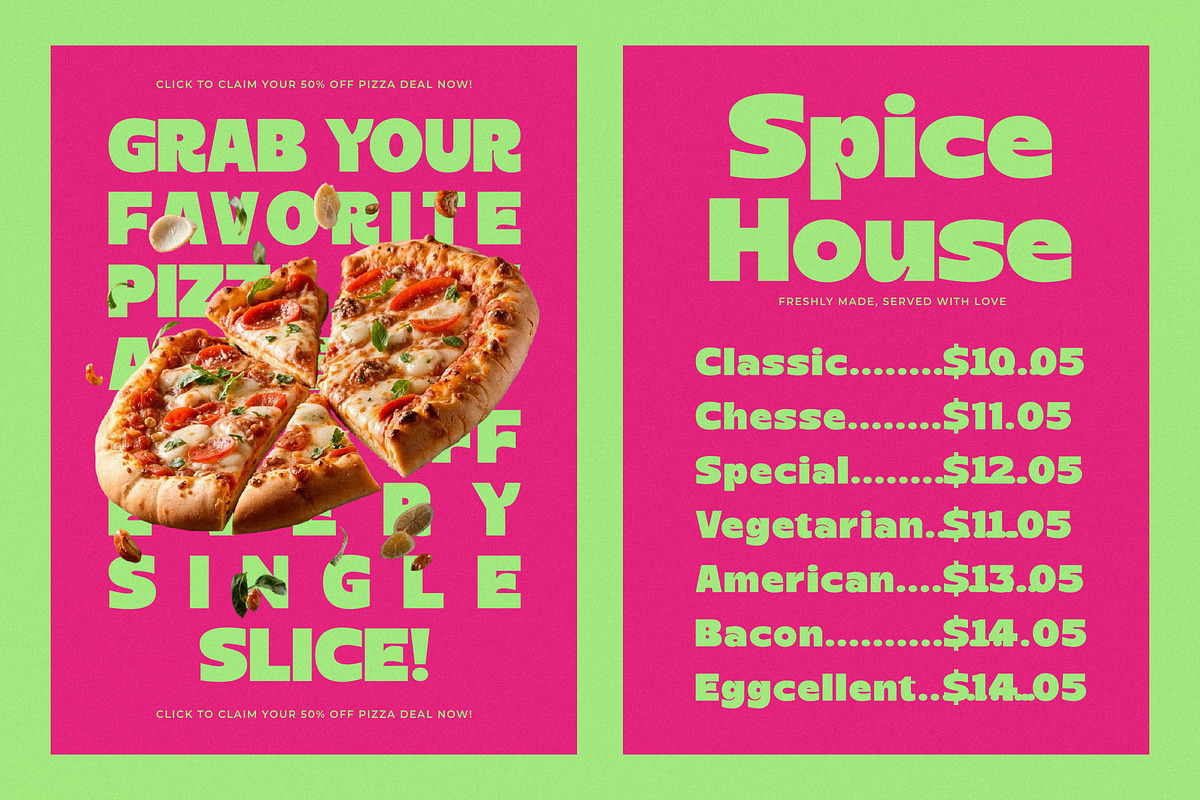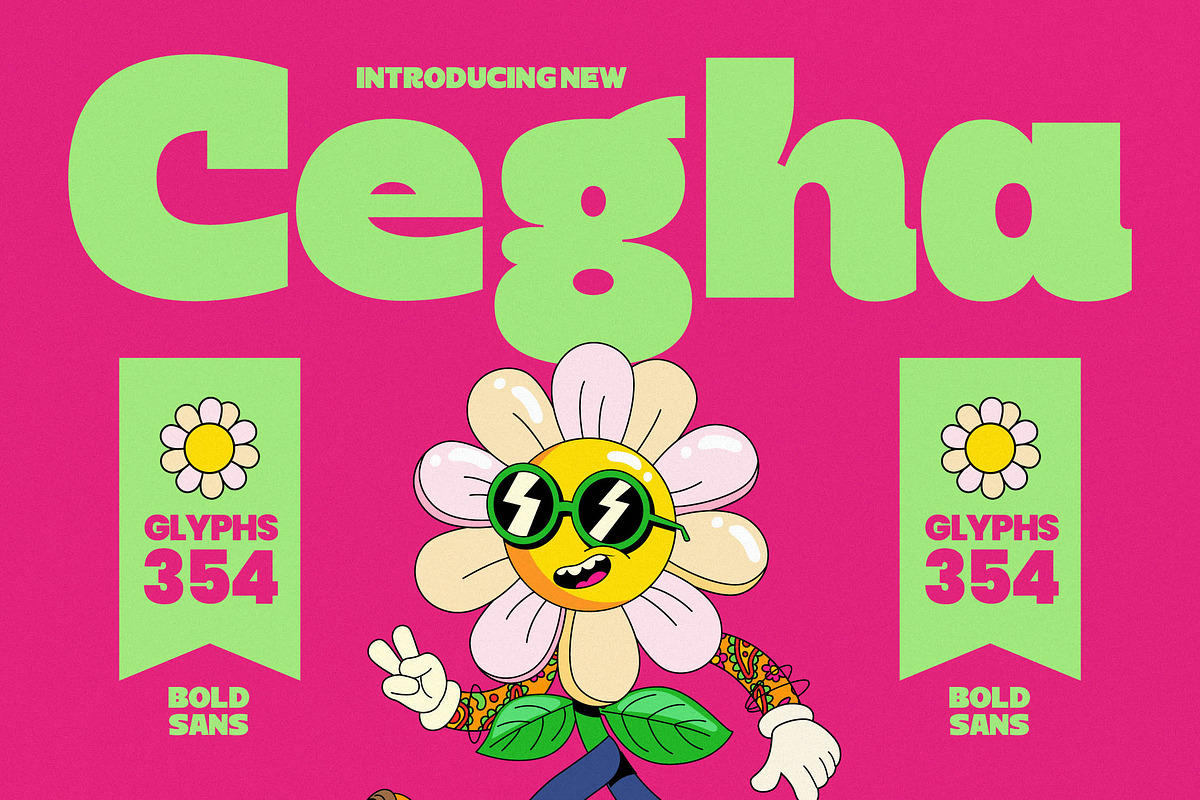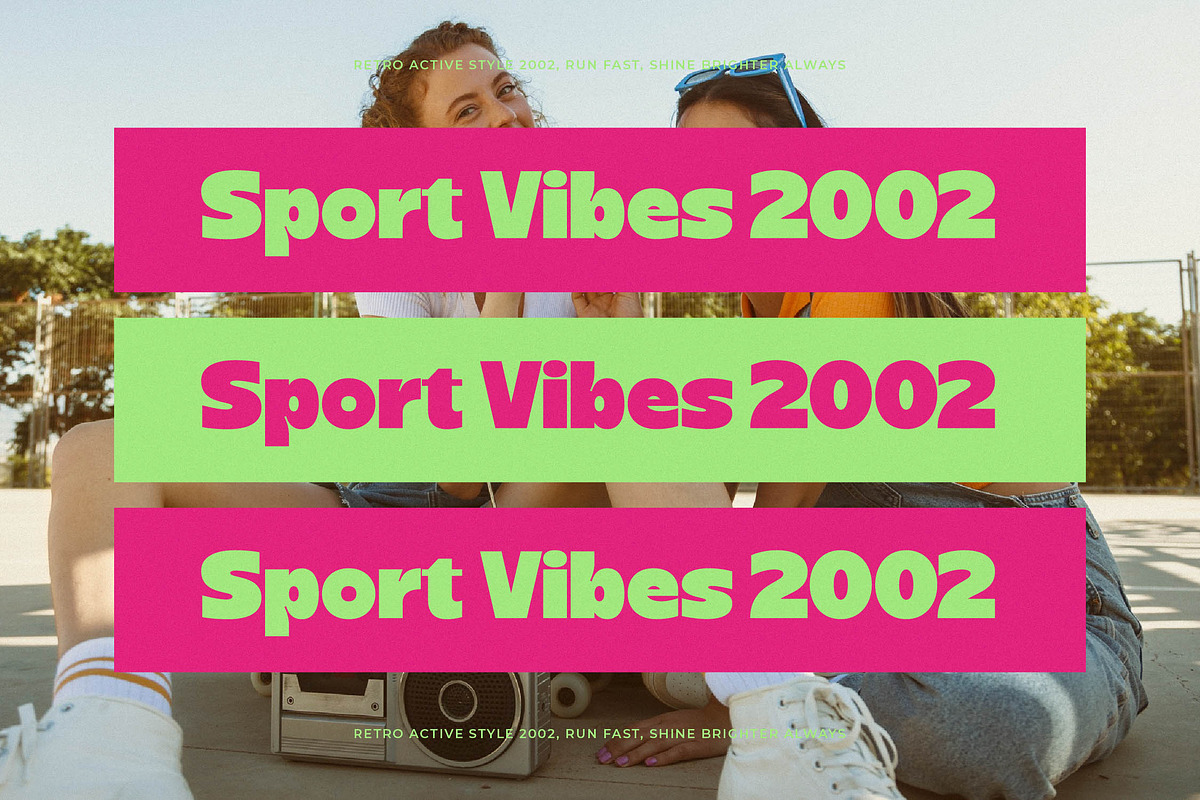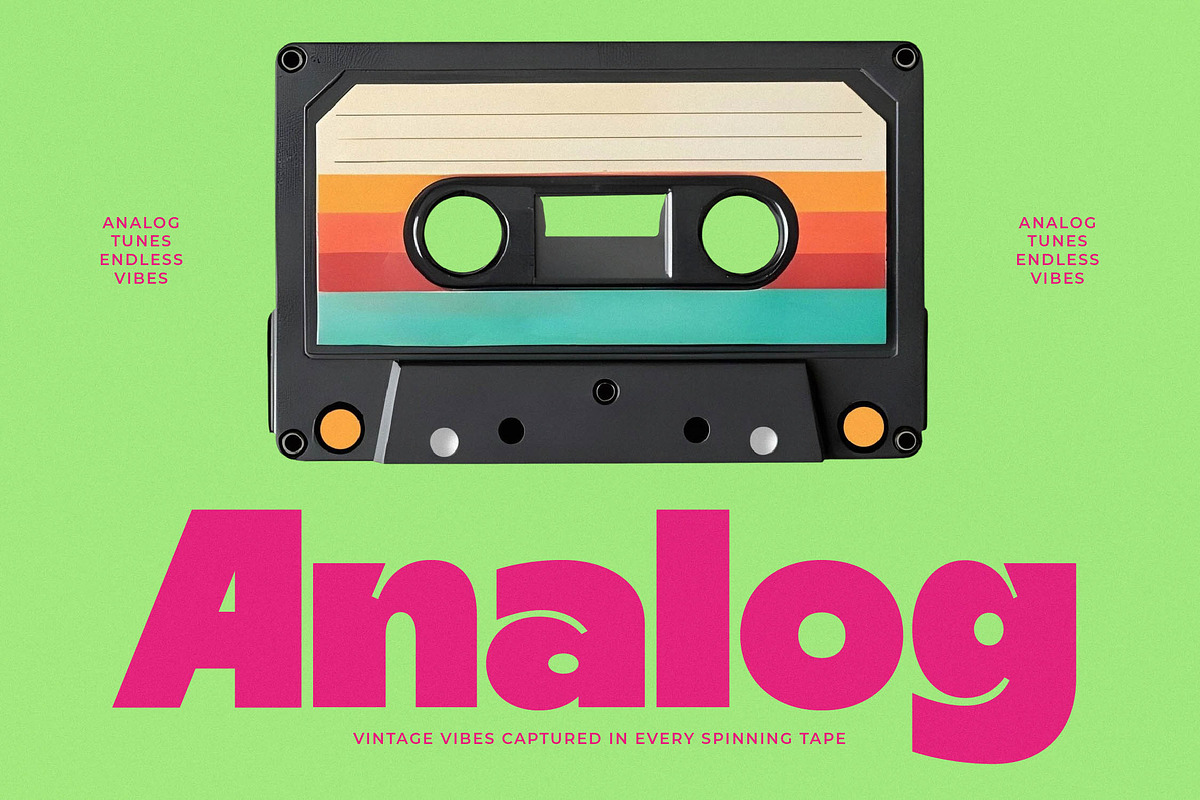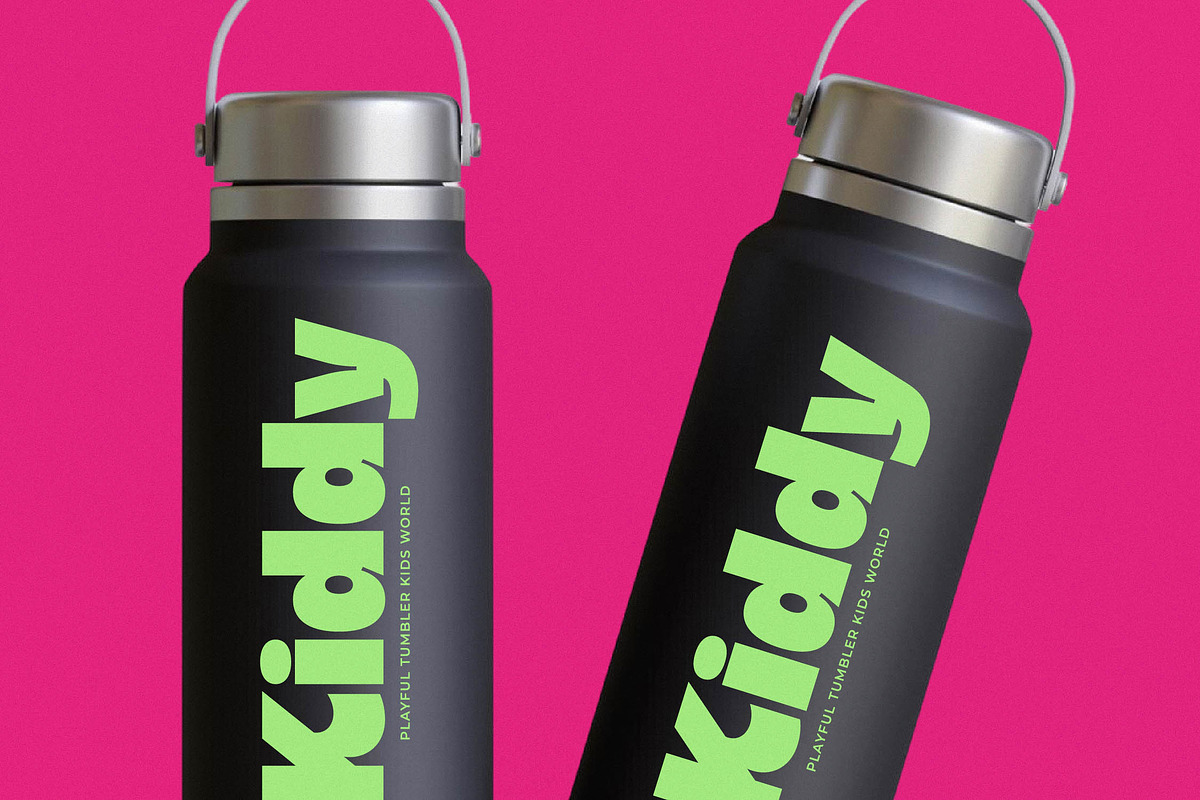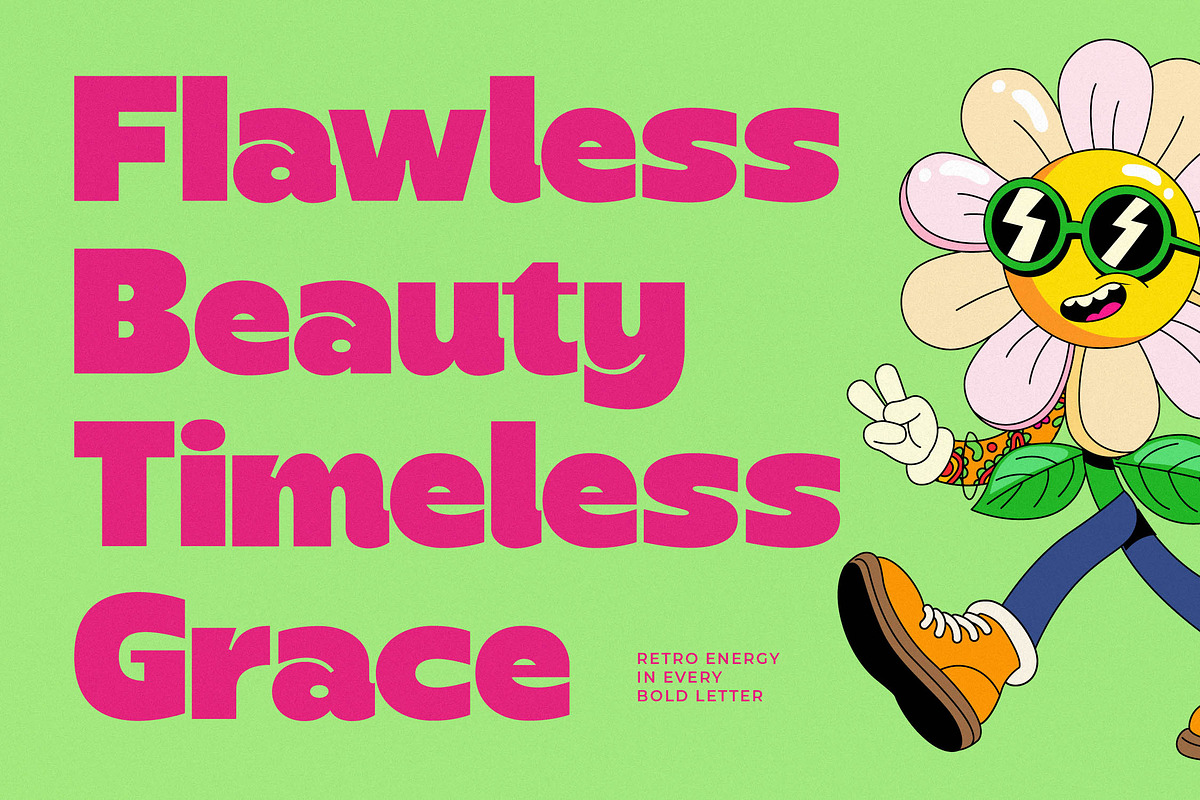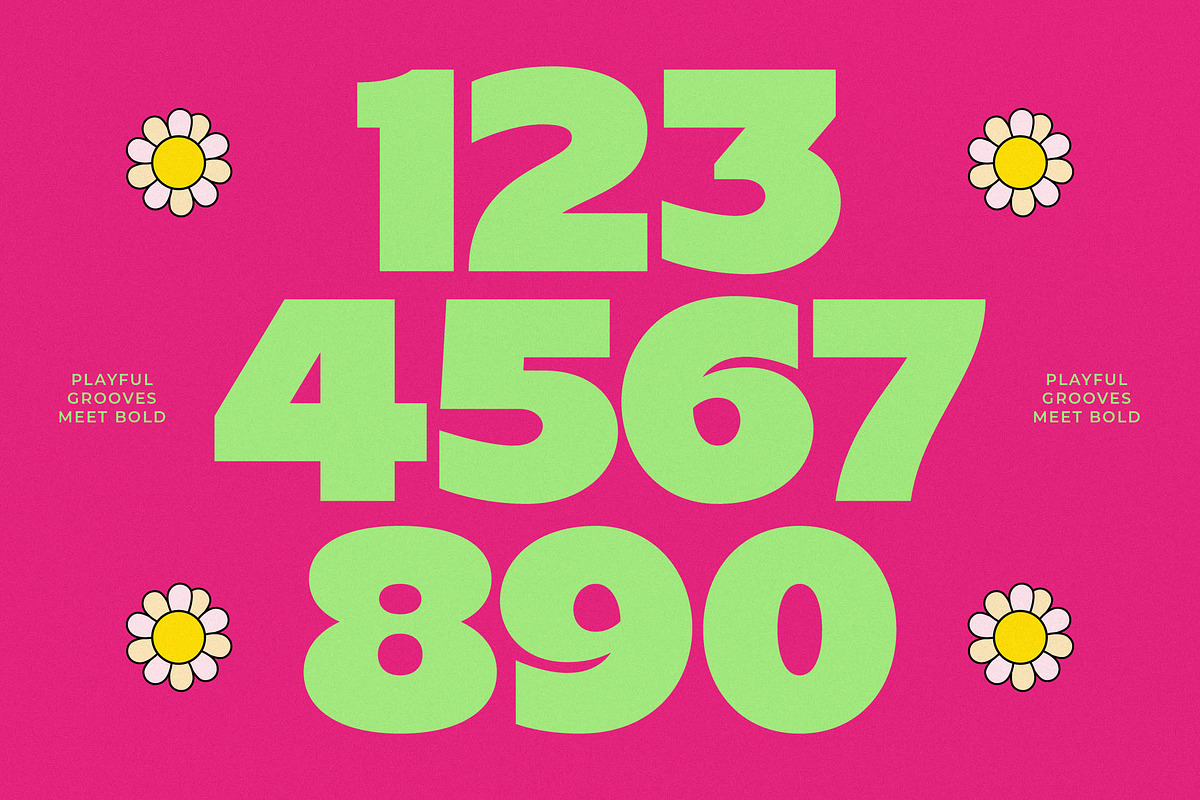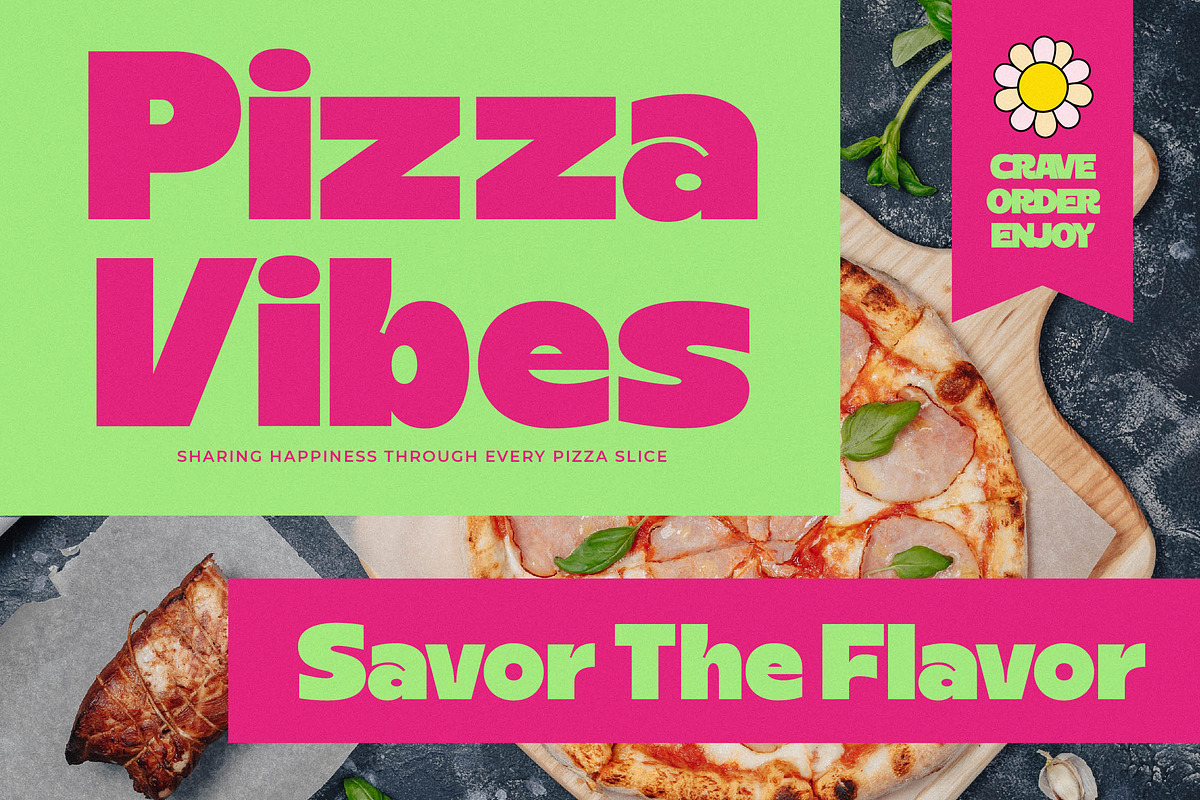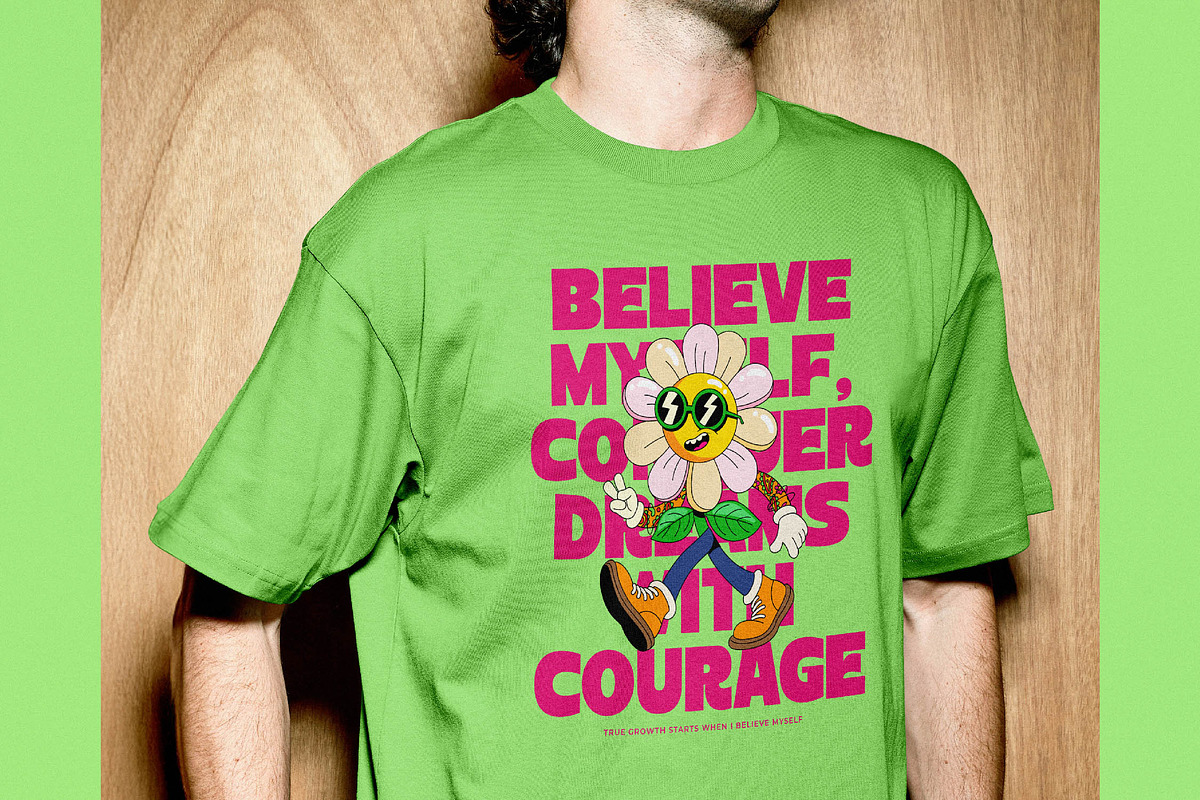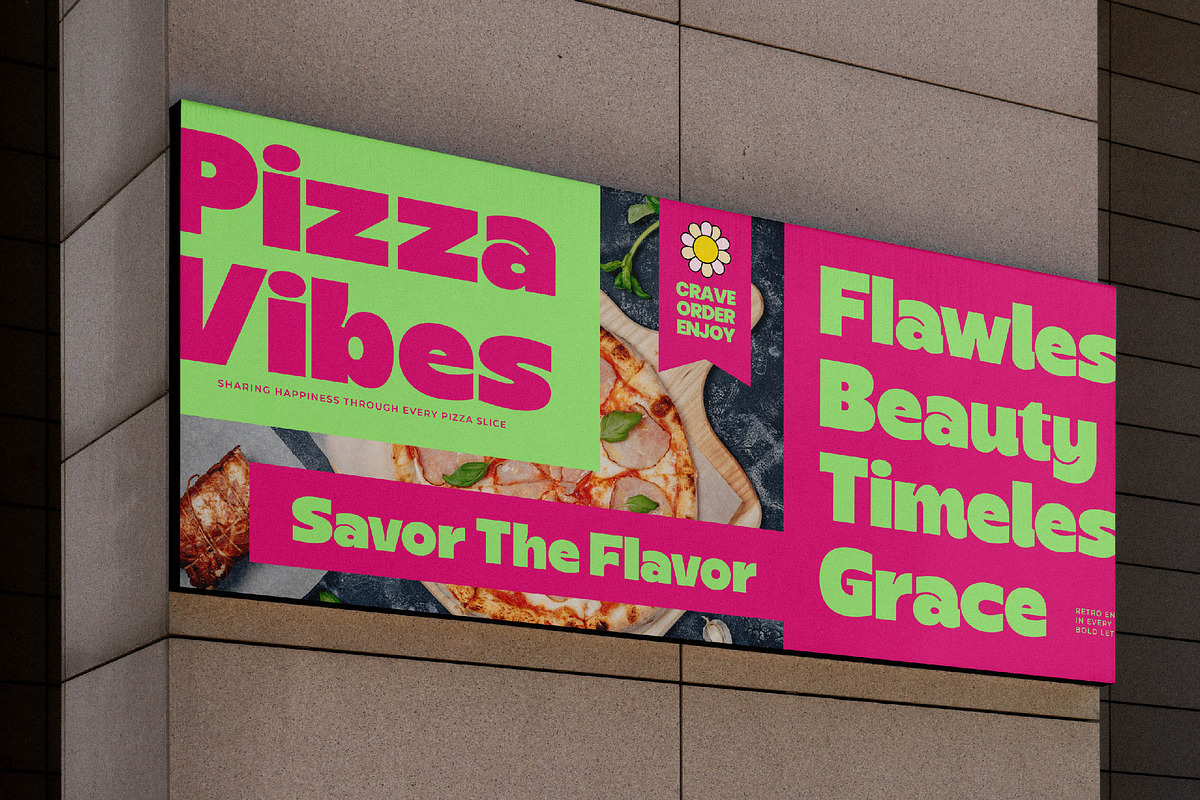
Cegha Groovy Bold Display Sans
Experience the vibrant rhythm of Cegha, a typeface designed to inject pure energy and a sense of playful nostalgia into every pixel. This font isn't just a set of characters; it's a bold statement for creators who want their work to stand out with an unmistakable groove and undeniable charisma.
Inspired by the funky aesthetics of the late 70s but polished for the digital age, Cegha captures the essence of playful grooves through its thick, juicy letterforms. It draws from retro poster art and the expressive nature of vintage advertising, blending organic curves with a contemporary edge that feels both nostalgic and fresh.
Built for maximum branding impact, this modern sans display offers a unique alternative to traditional luxury typography. It delivers the weight of a high-contrast display font with the approachability of an editorial font, ensuring your message is both loud and incredibly stylish across any high-profile medium.
As the modern retro trend continues to dominate the creative landscape, Cegha fits perfectly into the demand for editorial display fonts. It satisfies the current craving for character-driven typography that breaks away from minimal clean lines in favor of personality-rich, heavy-weight designs that demand attention.
This versatile typeface is the ultimate choice for standout logo design and high-energy branding projects that need a touch of fun. From vibrant editorial layouts and eye-catching packaging to bold fashion statements and quirky pizza or food-related marketing, it adapts seamlessly to any medium requiring a strong visual presence.
The package is fully loaded with 354 glyphs including a rich set of ligatures and creative alternates that allow for custom typographic flourishes. It also includes comprehensive multilingual support and a wide array of international characters, making it a global solution for modern designers looking for versatility without sacrificing style.